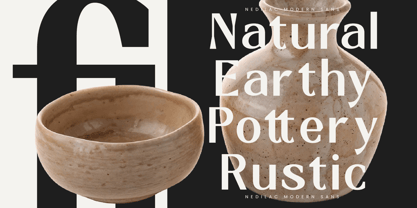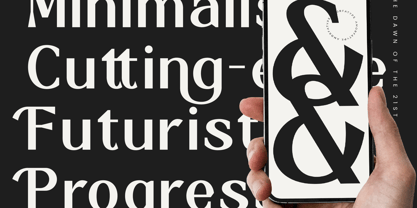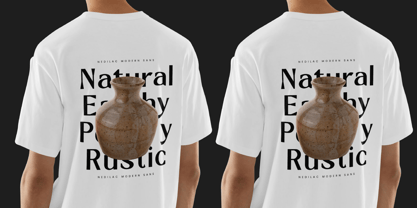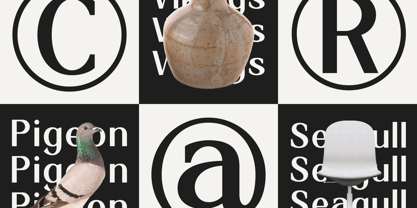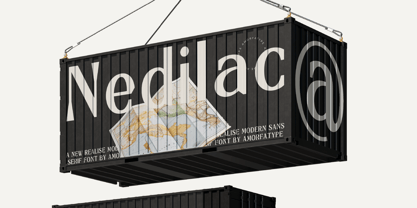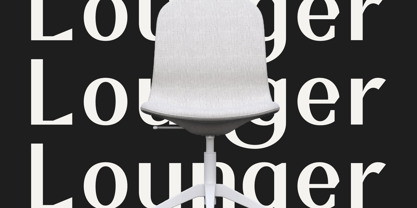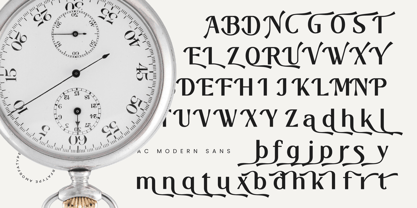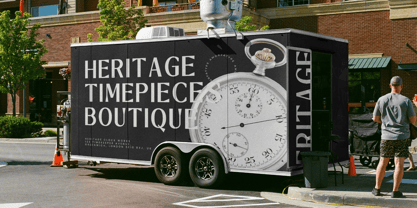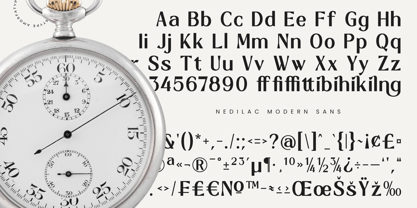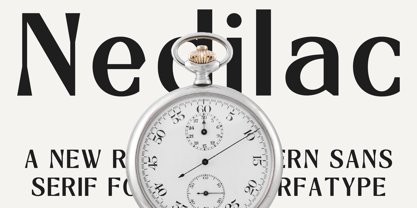
Nedilac
por Amorfa Type
La familia tipográfica Nedilac fue diseñada por Shiddiq Roihan y publicada por Amorfa Type. Nedilac contiene 2 estilos y opciones de paquete familiar. Más información sobre esta familia
Nedilac Modern Sans Serif Font by Amorfatype
Nedilac is a sleek and modern sans serif font that combines contemporary minimalism with timeless versatility. Featuring clean geometric lines and smooth, rounded edges, this font radiates clarity and elegance, making it an excellent choice for a variety of creative projects. The balanced stroke weights and refined details give Nedilac a polished and modern appearance, ideal for those seeking simplicity with a touch of sophistication.
Designed for adaptability, Nedilac works seamlessly across different applications, from branding and editorial layouts to sleek digital designs. Its clean and versatile character stands out in bold headlines and remains highly legible in smaller text sizes, offering a perfect blend of functionality and style. Each letterform is meticulously crafted to ensure a harmonious reading experience while maintaining a contemporary and professional aesthetic.